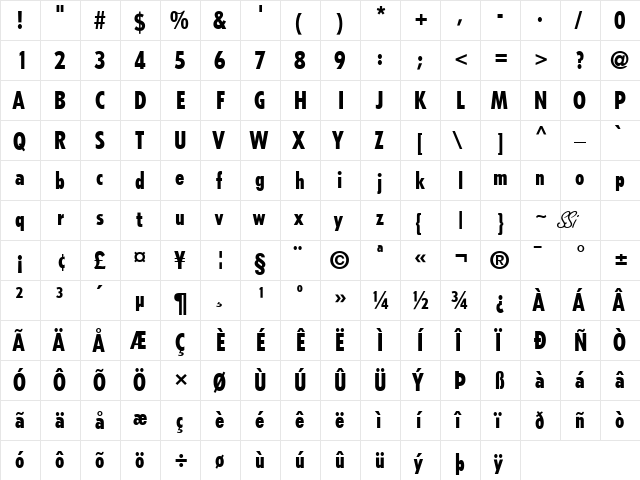
Arche Black Condensed SSi Black Condensed
Design Context for Arche Black Condensed SSi Typeface
Arche Black Condensed SSi takes a measured approach to typography — its balanced proportions and neutral character make it a reliable workhorse for both digital and print work. Its narrow stance lets it pack a punch even in space-constrained designs.